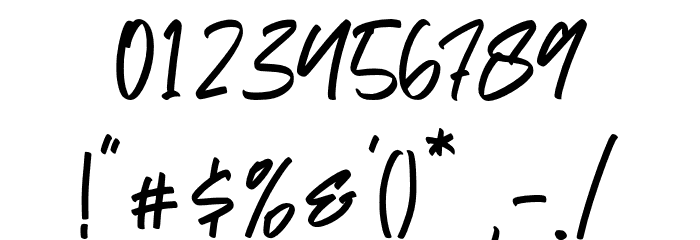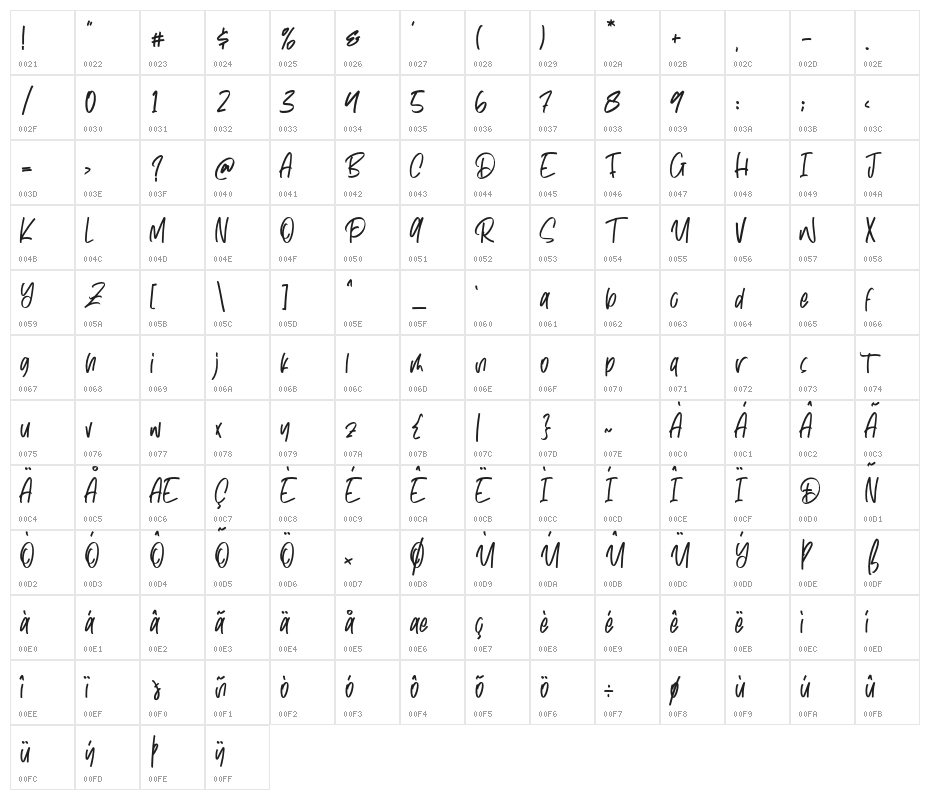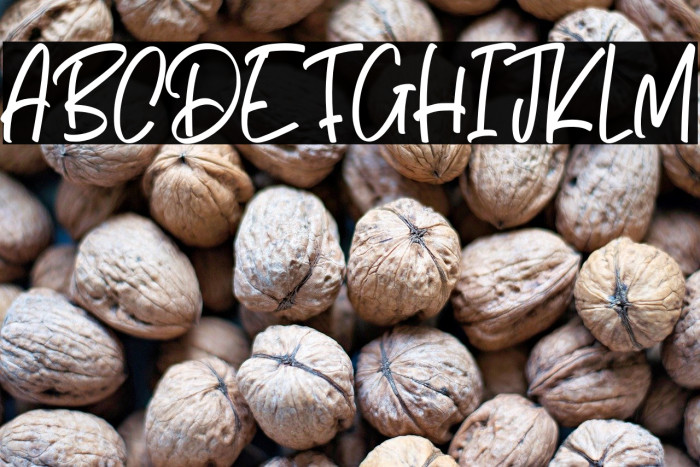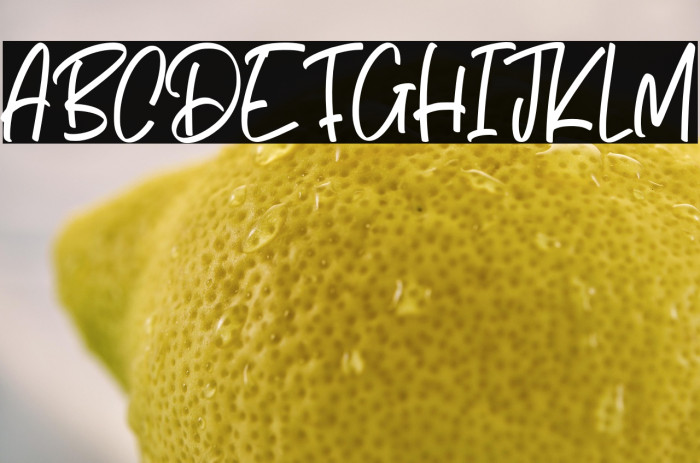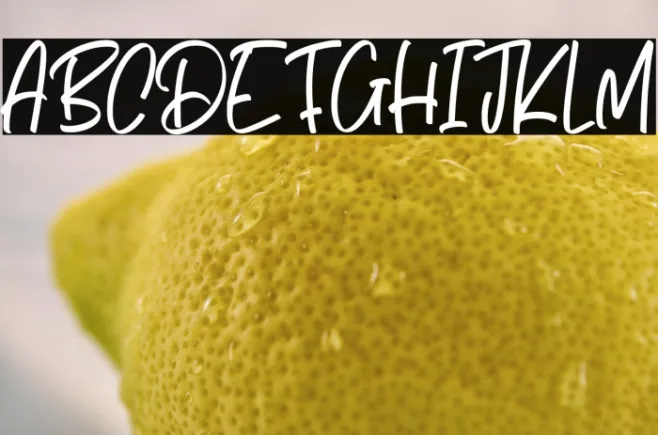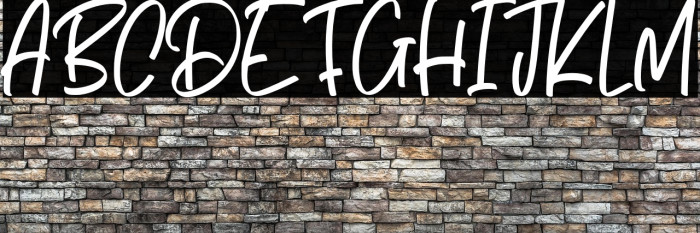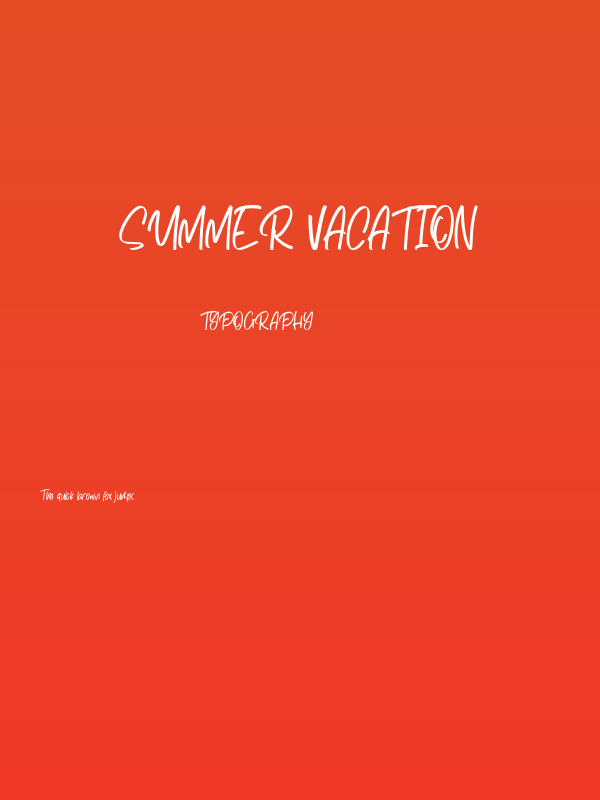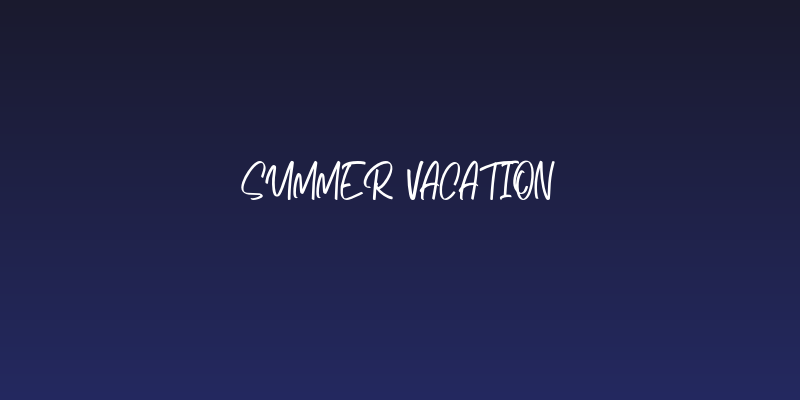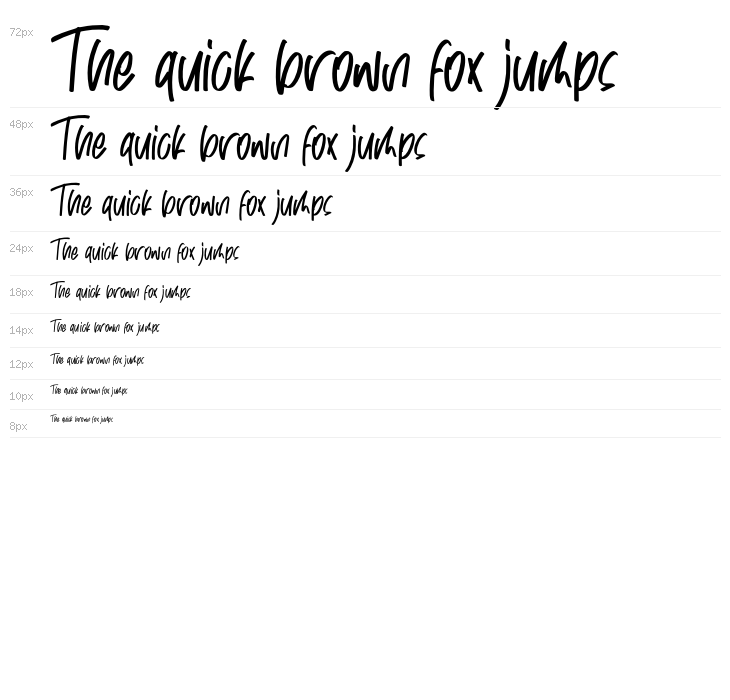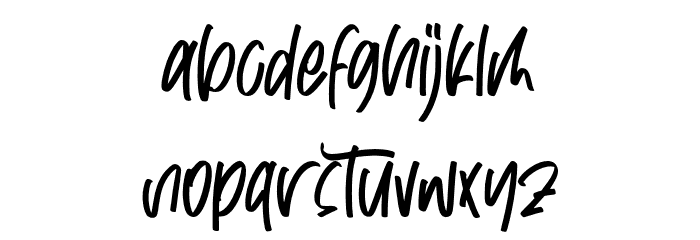
Summer Vacation Font
Summer Vacation Description
This font features a lively and energetic handwritten style, characterized by its fluid and dynamic strokes. The letters are slightly slanted, giving a casual and informal appearance. The uppercase and lowercase letters maintain a consistent flow, with rounded edges and a playful touch. The numerals and special characters are crafted with the same spirited style, ensuring a cohesive look across all text. This font exudes a sense of fun and creativity, making it ideal for projects that require a personal and approachable feel.
| Proposed Projects | Ideal for greeting cards, invitations, social media graphics, and branding projects that aim to convey a personal and friendly tone. |